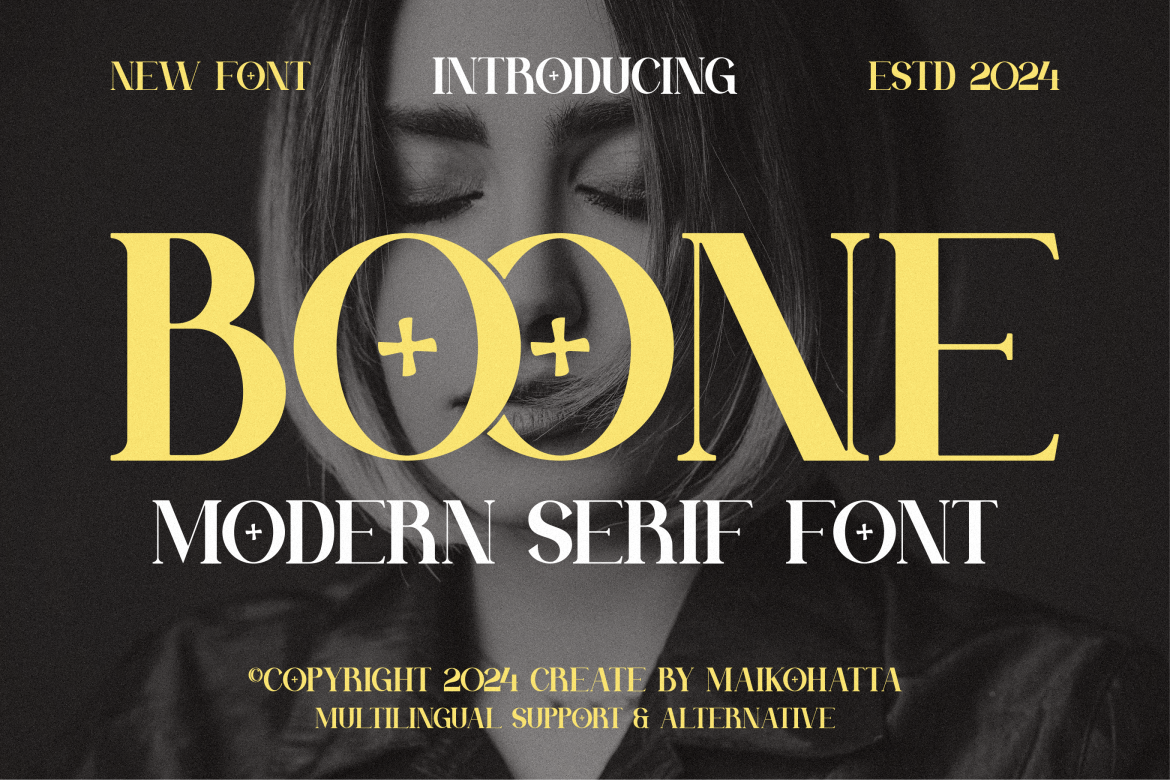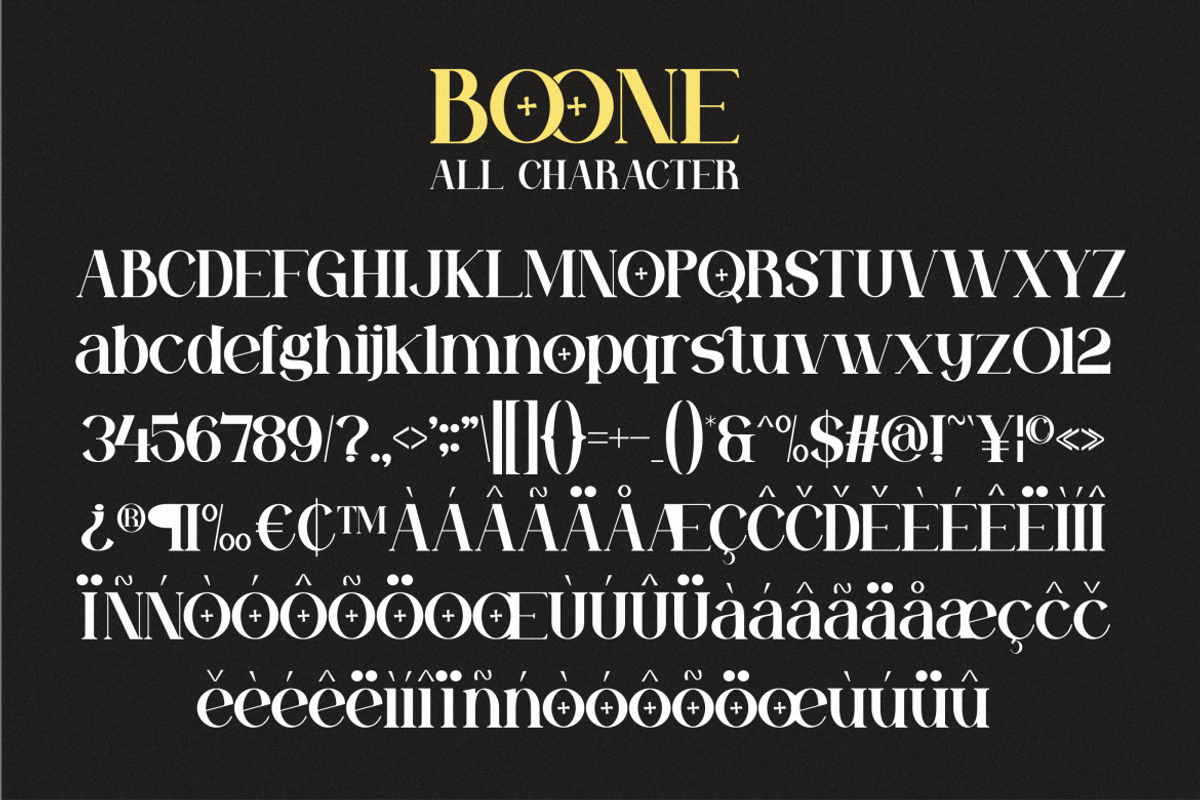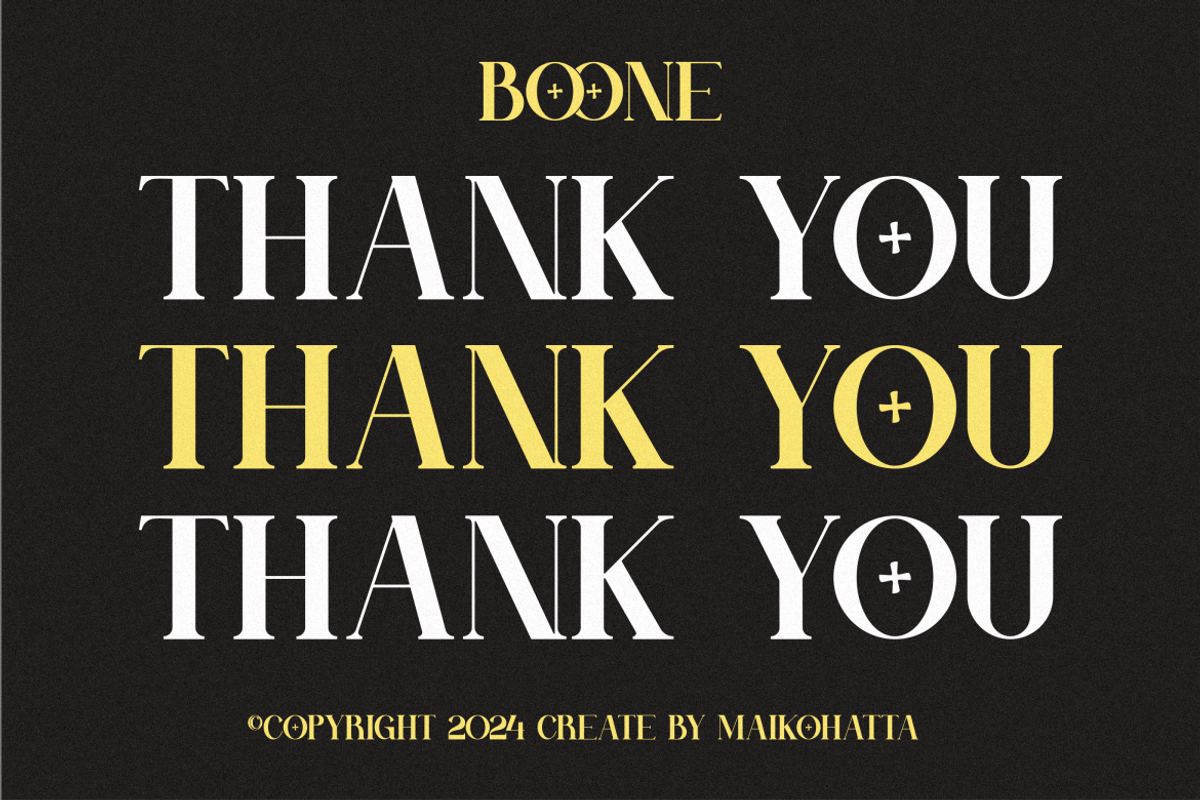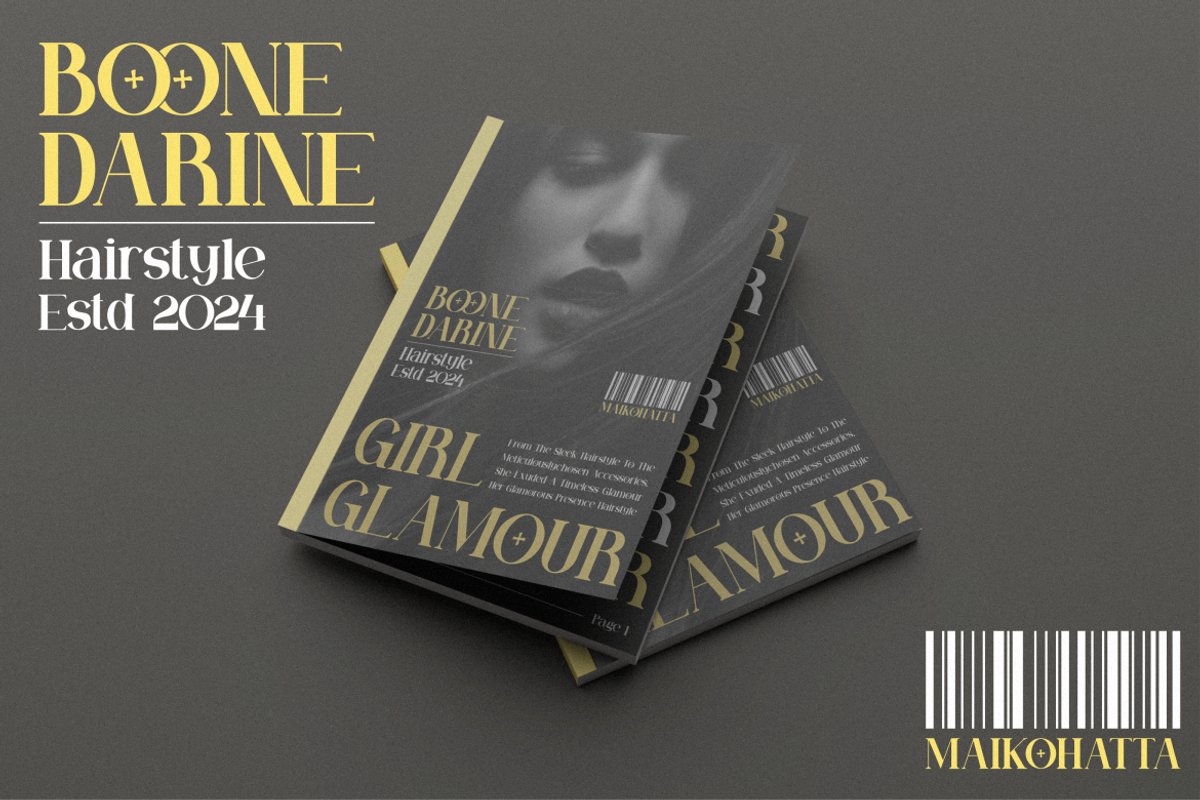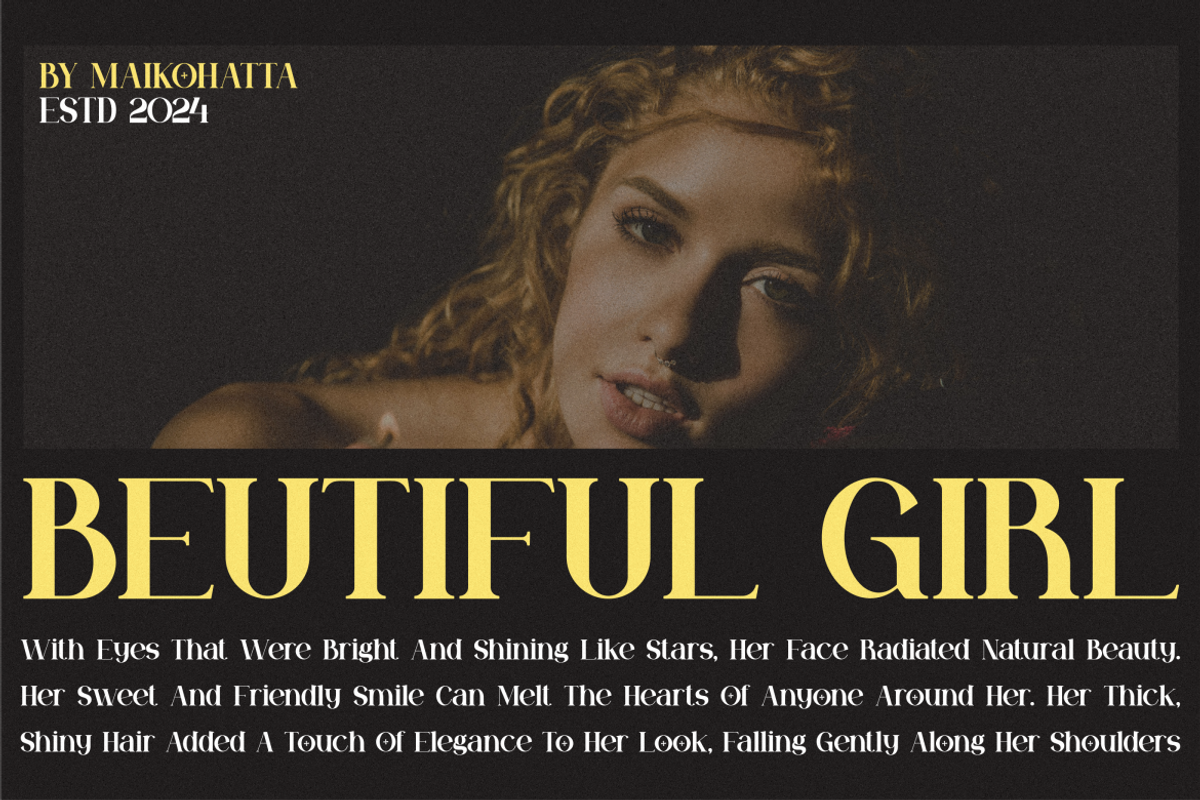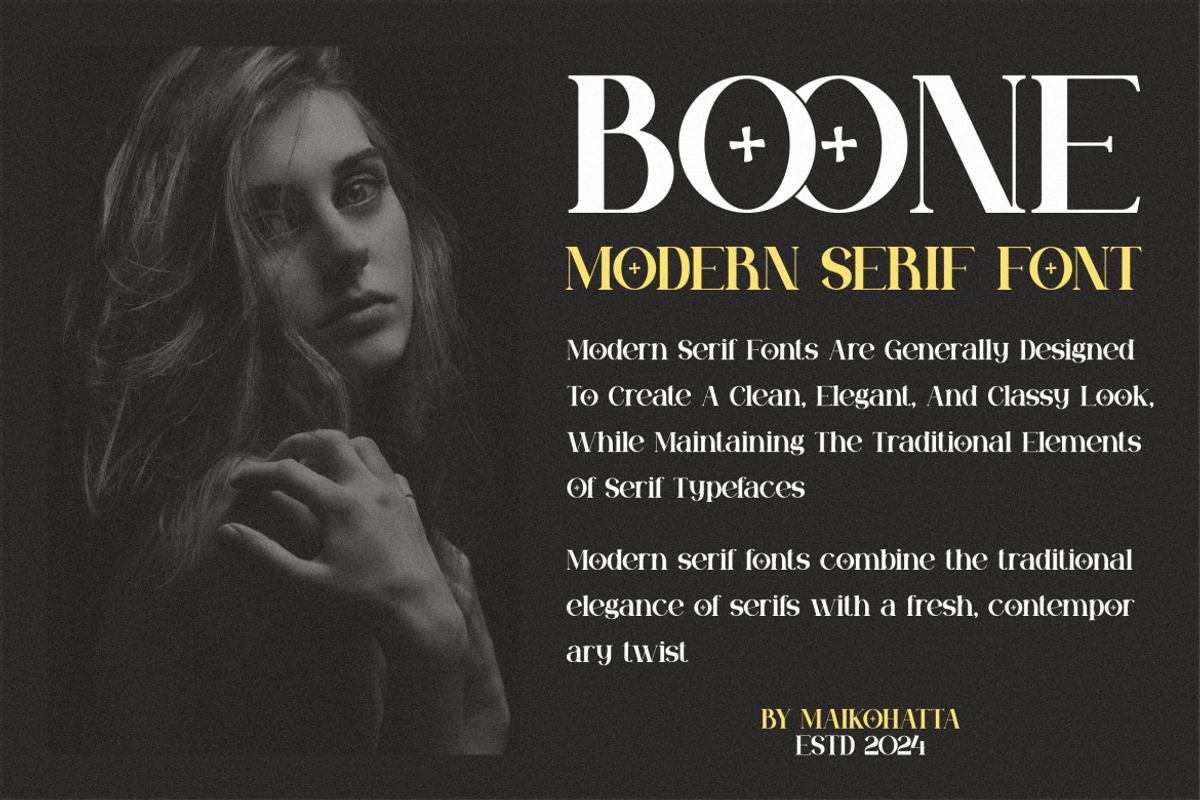
Boone - Modern Serif Font
Introducing our new product Boone Modern Serif Font
This font features a balanced proportion of stroke thickness and fineness, creating attractive and easy-to-read visuals. This modern serif style is often characterized by a bold distinction between thick and thin lines, providing a touch that is understated but still stands out.